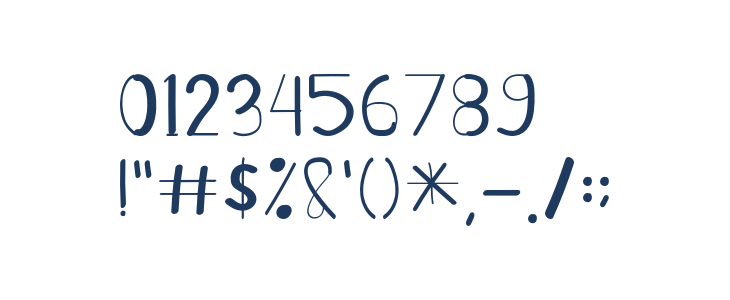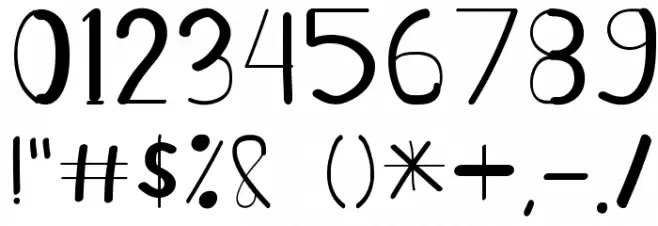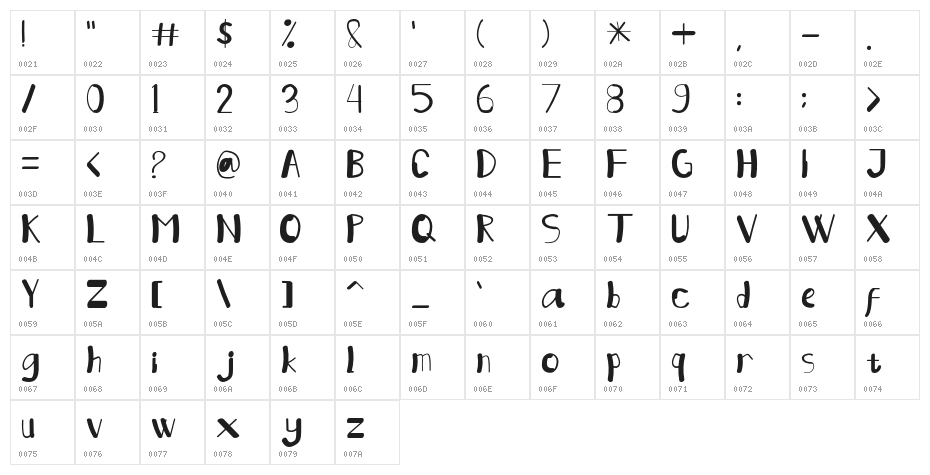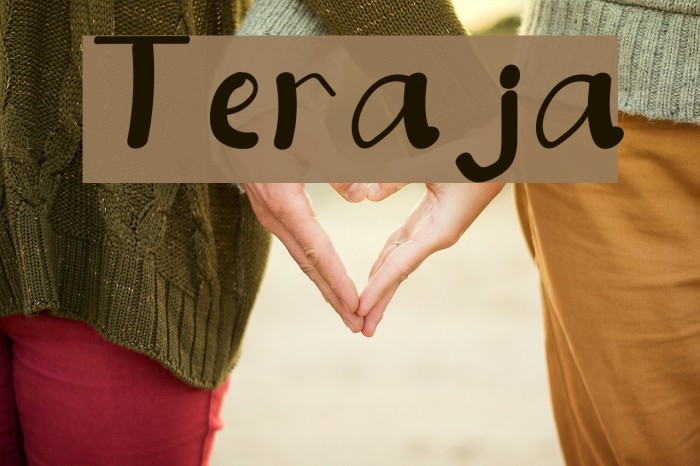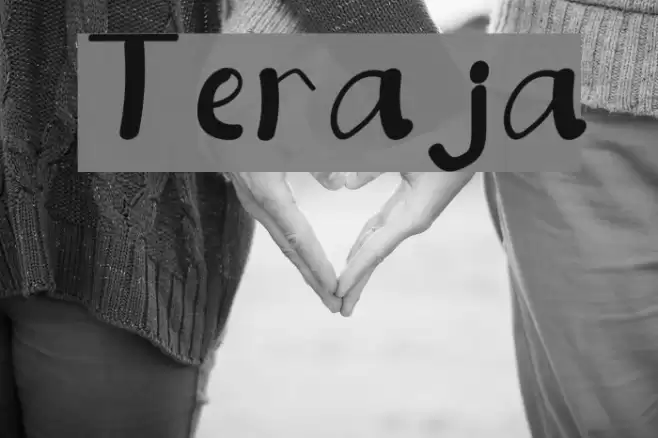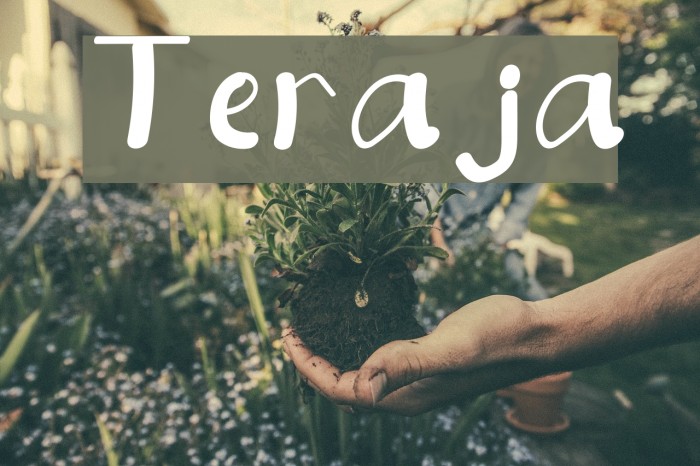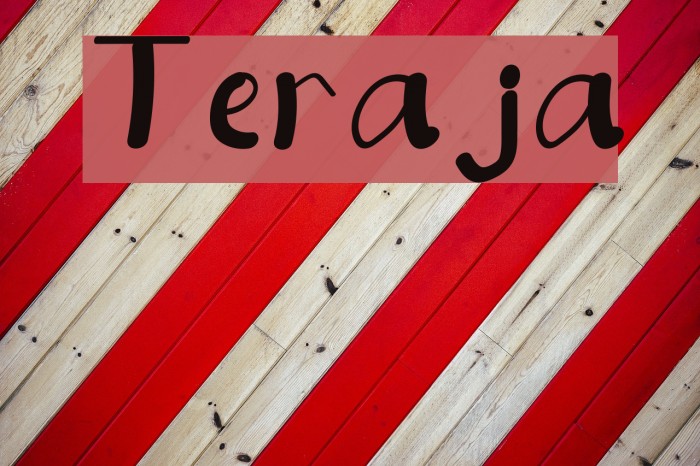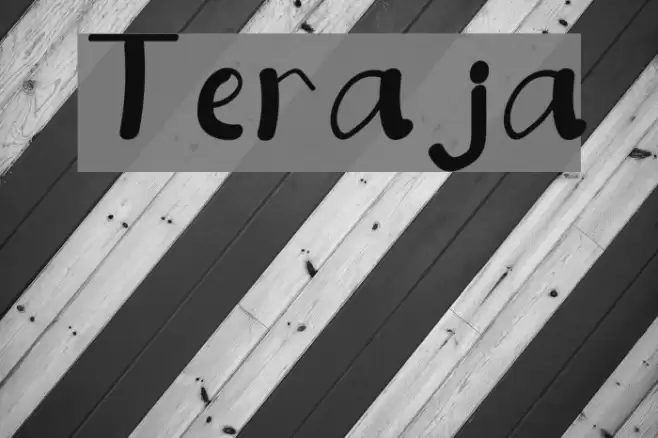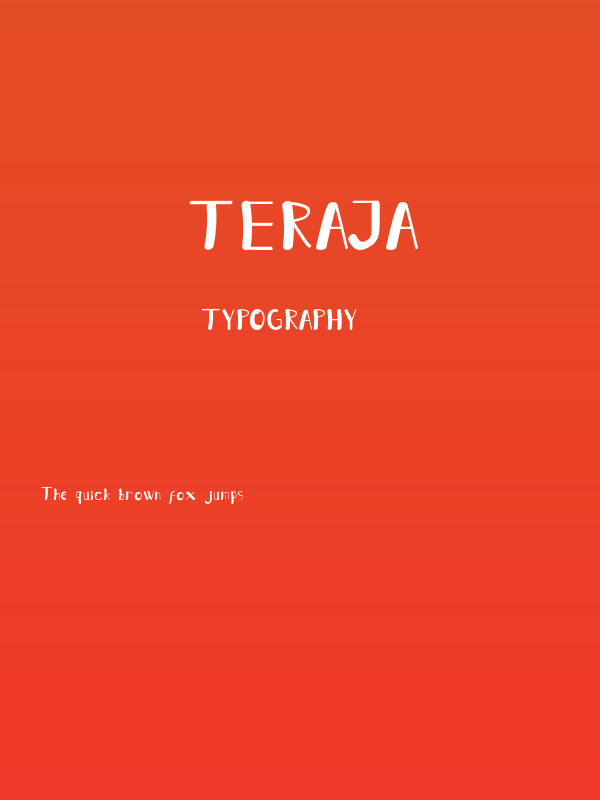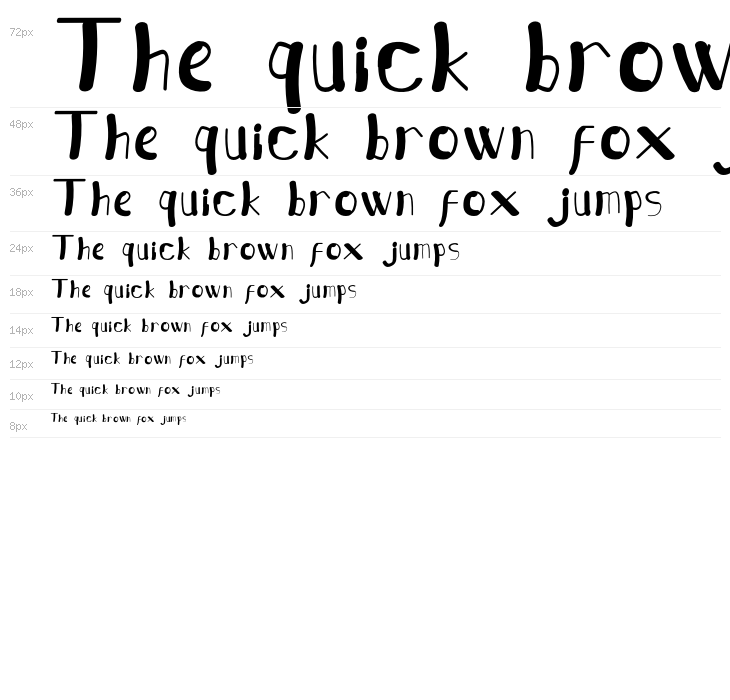
Teraja Font
Teraja Description
This font features a playful and informal style with a handwritten appearance. The letters are slightly irregular, giving it a casual and friendly look. The strokes are bold and rounded, with varying thickness that adds a dynamic feel. The uppercase letters are tall and slightly narrow, while the lowercase letters are more rounded and open. Numbers and special characters maintain the same playful style, making this font versatile for creative projects. The overall design is approachable and lively, perfect for adding a personal touch to any text.